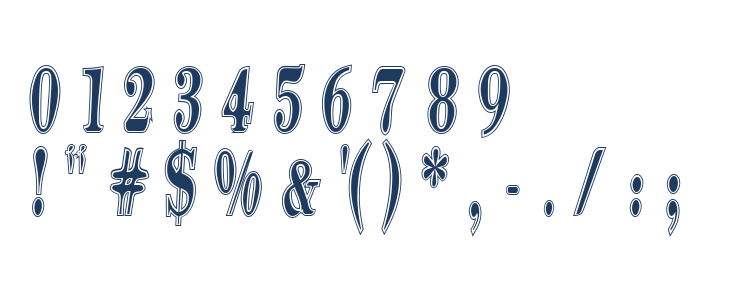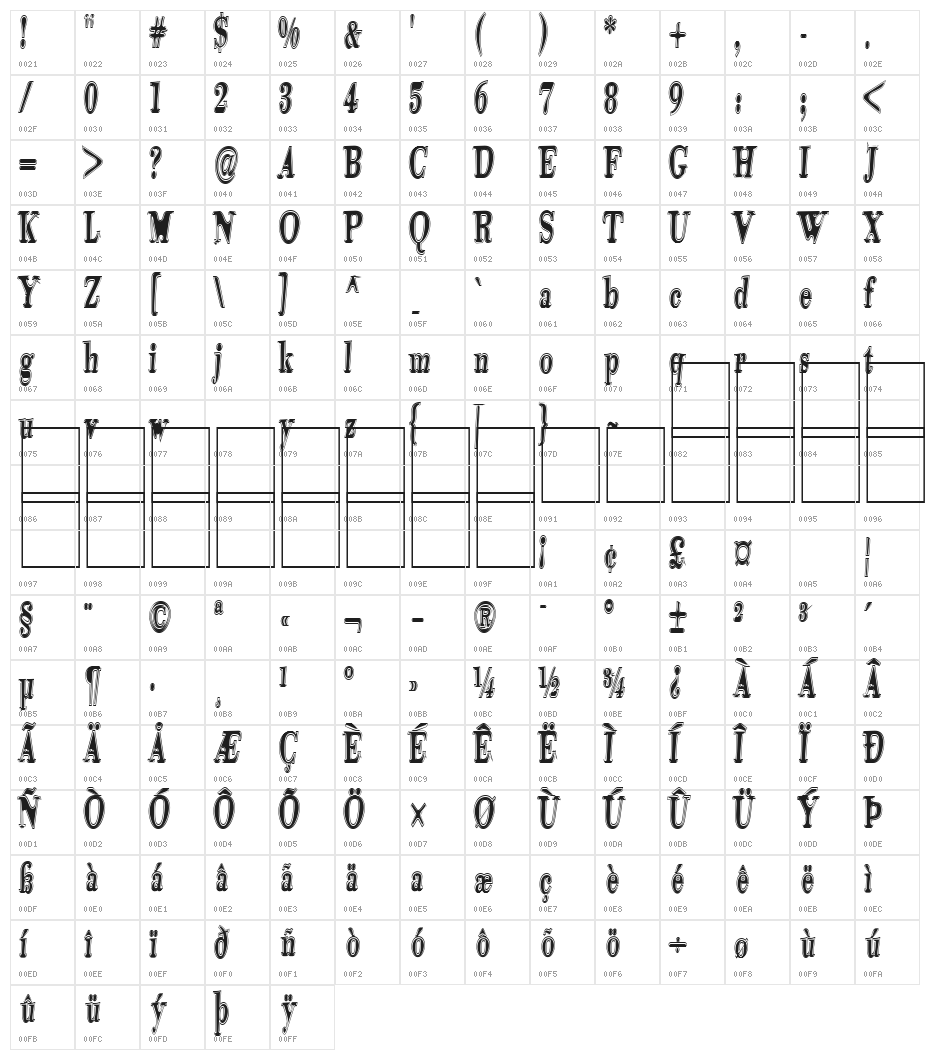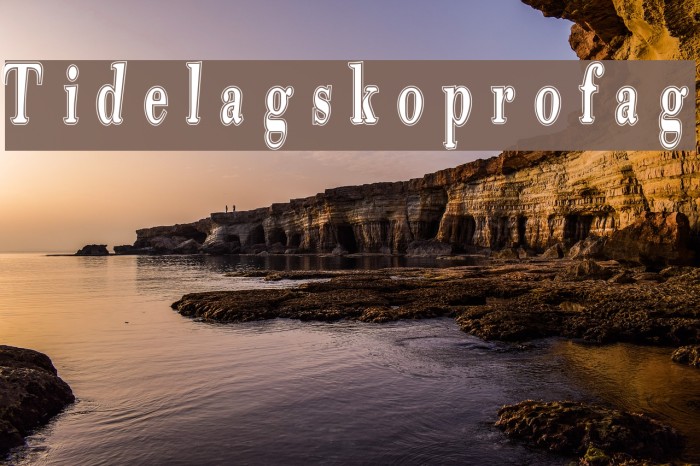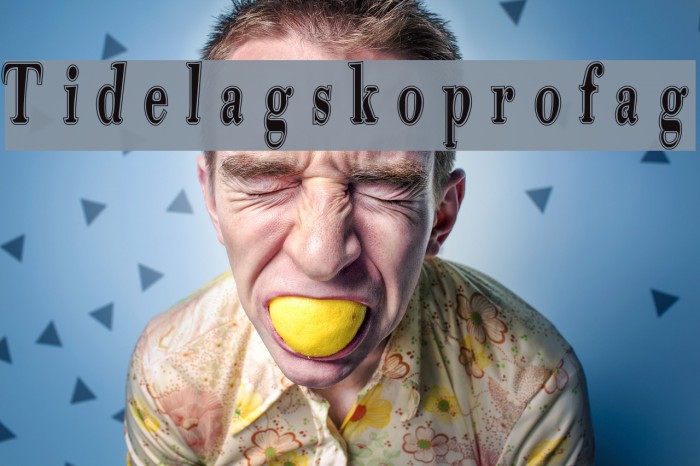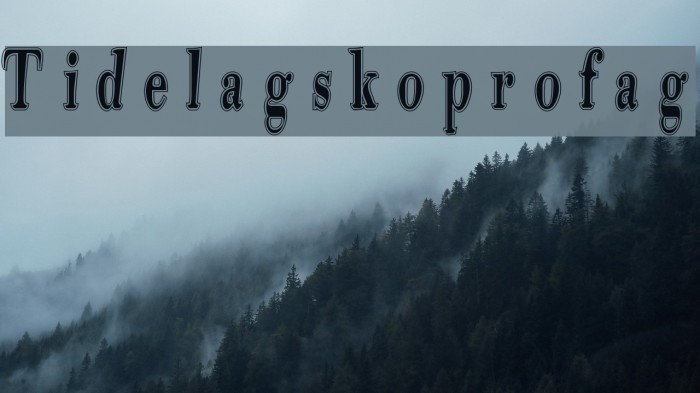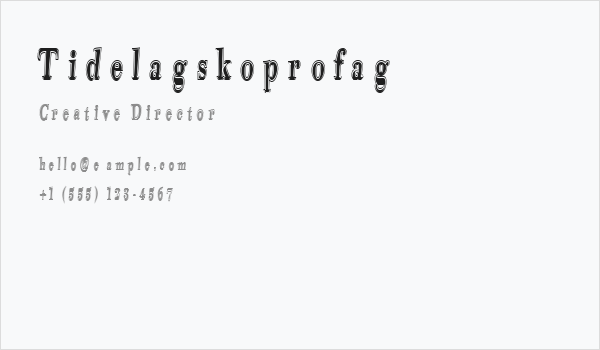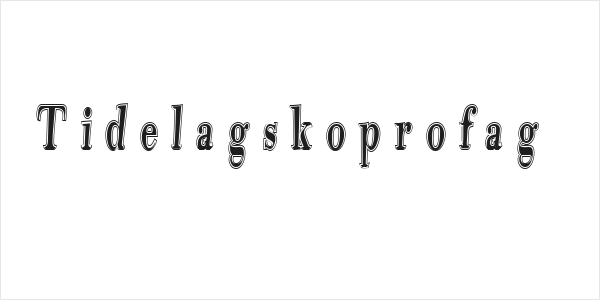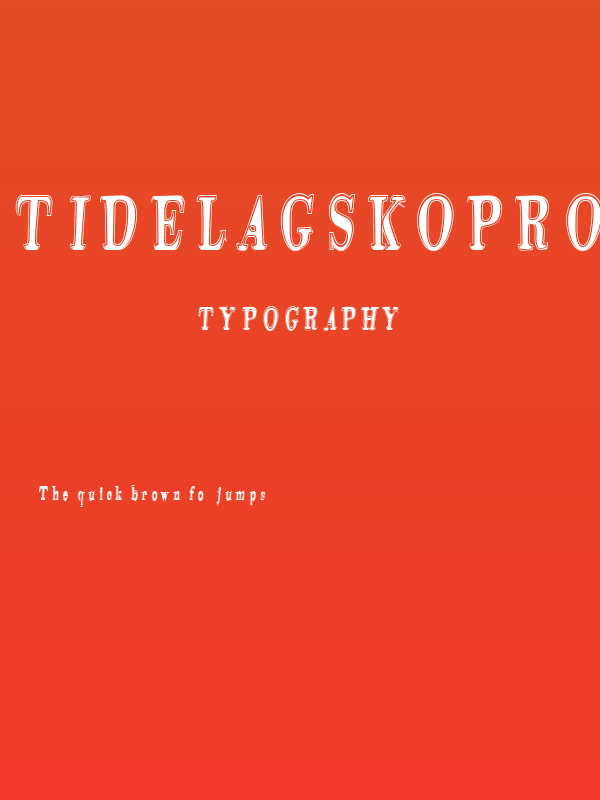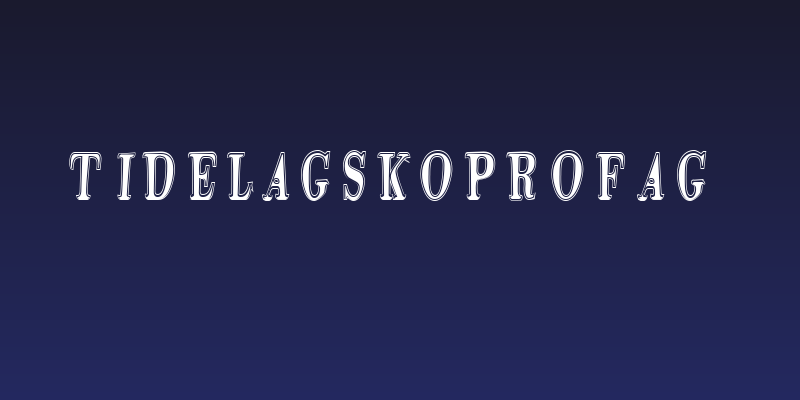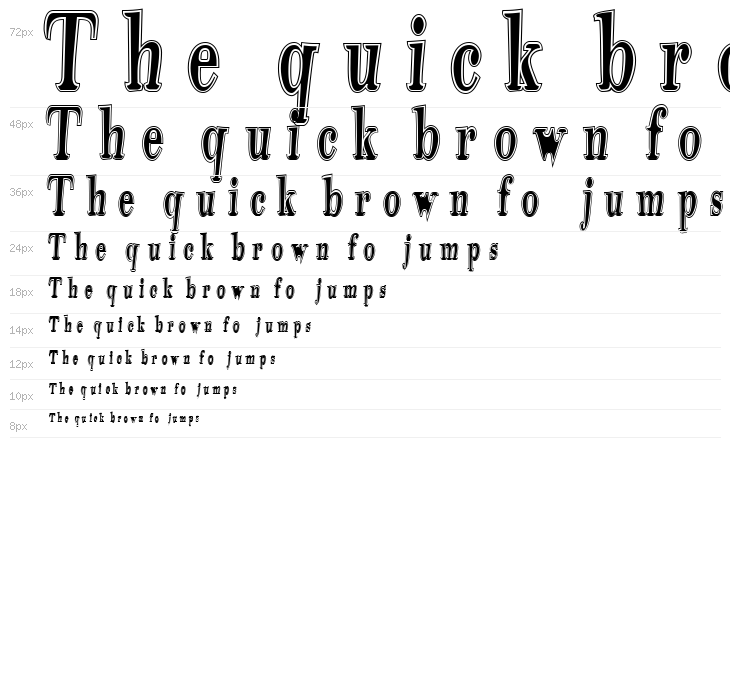
Tidelagskoprofag Font
Tidelagskoprofag Description
This font features a bold and decorative style with a distinct outline and shadow effect, giving it a three-dimensional appearance. The uppercase letters are tall and commanding, while the lowercase letters maintain a consistent style with slight variations in height and stroke. The numerals are equally bold, matching the overall aesthetic of the alphabet. Special characters are included, each designed to complement the font's unique style. The font's playful yet sophisticated look makes it suitable for eye-catching designs.
| Proposed Projects | Ideal for poster designs, book covers, branding projects, and any creative work requiring a standout typeface. |